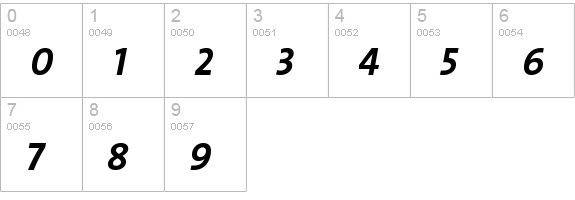
TheSans Bold Caps Italic is a strong, high-contrast, italic variant in the TheSans typeface family \xE2\x80\x94 well suited to headlines, attention-grabbing titles, and strong calls-to-action.
TheSans Bold Caps Italic font is a stylish and versatile typeface that exudes confidence and elegance. With its bold and capital letters, it commands attention and adds a touch of sophistication to any design project. This font is perfect for creating impactful headlines, logos, and titles that make a lasting impression. Its italicized form adds a sense of dynamism and motion, making it ideal for expressing energy and creativity. TheSans Bold Caps Italic font is characterized by its clean and modern lines, ensuring readability even at smaller sizes. Its bold weight provides a strong visual presence, while the capital letters add a sense of authority and importance. One of the best things about TheSans Bold Caps Italic font is that it is freely available to download at FontsMarket.com. This means that you can easily incorporate this stunning font into your projects without any cost. Whether you are a professional designer or a hobbyist, this font offers you the opportunity to enhance your work with a high-quality typeface, without breaking the bank. So why wait? Download TheSans Bold Caps Italic font today and elevate your designs to new heights. With its combination of boldness, elegance, and availability, it is a must-have addition to any font library. Enjoy the freedom to create stunning visuals with this remarkable font, available for free at FontsMarket.com.